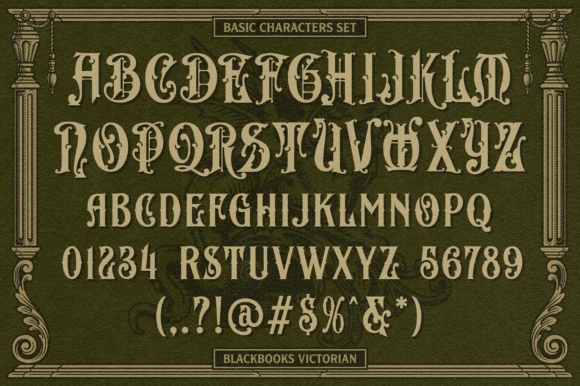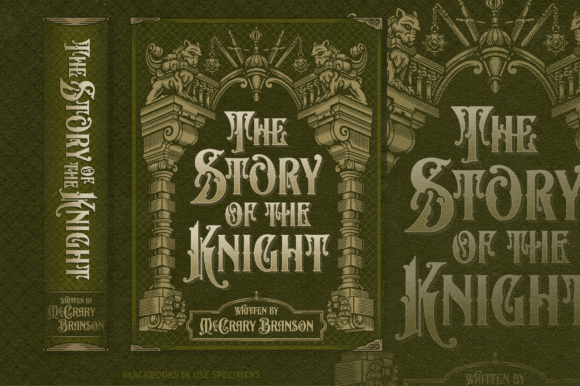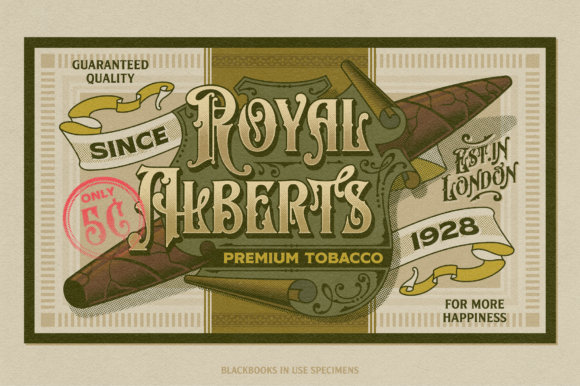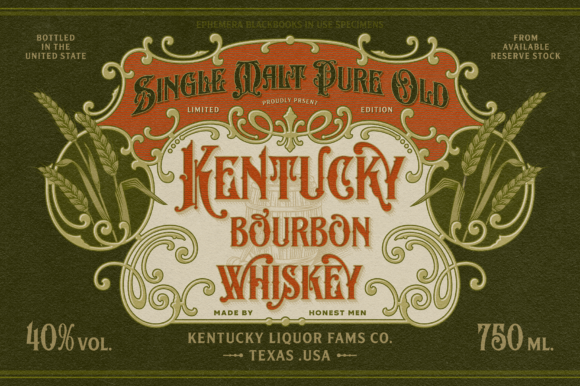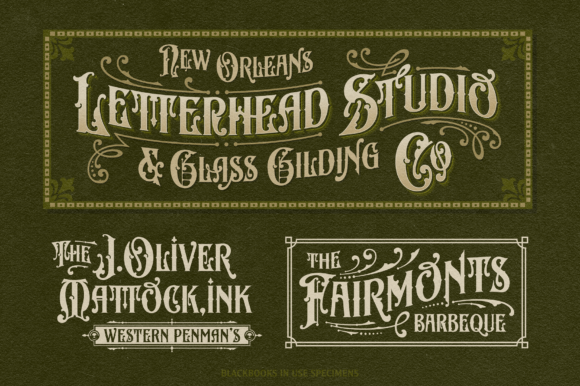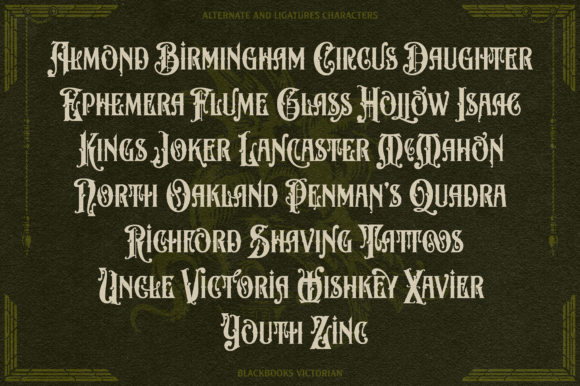
Unleashing the Mystery of Black Books Victorian Font
As I sat in my dimly lit studio, surrounded by scribbled notes and scattered sketches, I stumbled upon a font that transported me to a bygone era – the Black Books Victorian Font. Its intricate strokes and elegant curves whispered tales of a long-forgotten past, beckoning me to create something extraordinary.
Black Books Victorian Font is a stunning blackletter font, perfectly suited for logos, posters, headlines, packaging, and even tattoos. Its unique style lends an air of sophistication and mystery, making it an invaluable tool for designers seeking to add a touch of elegance to their work.
With its PUA encoding, accessing the font’s glyphs and swashes is a breeze, allowing designers to unleash their creativity and push the boundaries of what’s possible with typography.
- Unique Characteristics: Distressed, vintage, and ornate design elements, with intricate details and subtle texture
- Style: A serif font with a classic, elegant feel, reminiscent of traditional Victorian-era typography
Designer Review: Black Books Victorian Font
Overall, I have mixed feelings about the Black Books Victorian Font. Here’s my honest review.
- Unique aesthetic: The font’s Victorian-inspired design gives it a distinct, elegant look that can add character to various projects.
- Legibility: Despite its ornate nature, the font remains relatively legible, making it suitable for body text.
- High-quality glyphs: The font’s glyphs are well-crafted, with clean lines and smooth curves.
- Limited font sizes: The font may not be ideal for small font sizes, as the intricate details can become difficult to read.
- Not suitable for large blocks of text: Due to its ornate nature, the font can be overwhelming when used for extended passages.
- Lack of versatility: The font’s design may not be adaptable to various contexts or themes.
The Black Books Victorian Font is a stylish choice for specific design projects that require an elegant, vintage touch. However, it may not be the best fit for every project, especially those requiring legibility or flexibility.
The Black Books Victorian Font is ideal for creating a vintage or steampunk-inspired design. Use it for:
- Book covers and title pages.
- Marketing materials and posters.
Remember to pair the font with complementary colors and design elements to achieve the desired aesthetic.